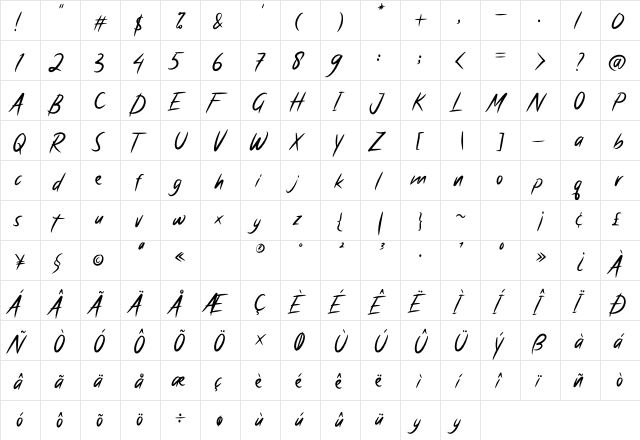
Antique Regular
| Foundry | StringLabs |
| Designer | Virgiawan Listanto |
Design Context for Antique Typeface
Antique wears its vintage influences proudly, with letterforms that recall mid-century signage, classic packaging, and nostalgia-driven design.
Font Pairing: Combine Antique with a simple slab or neutral sans — period-accurate companions reinforce the vintage feel without competing for attention.
Pro Tip: Use Antique for headlines and pull quotes rather than body copy — its personality is best appreciated in short, focused bursts.